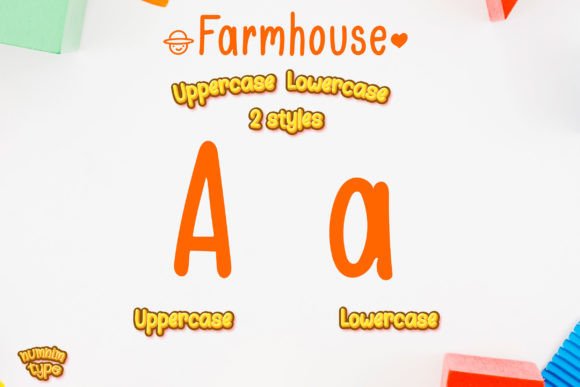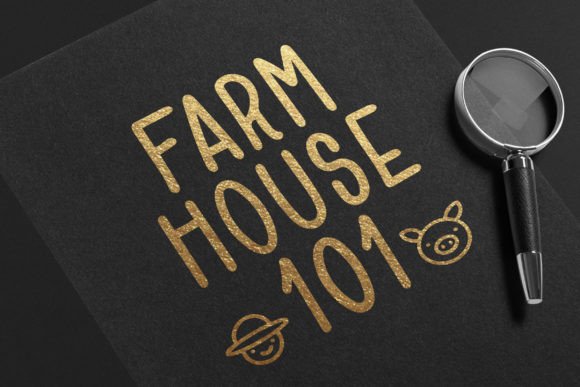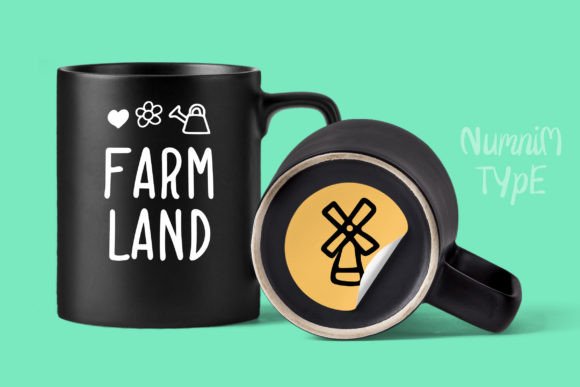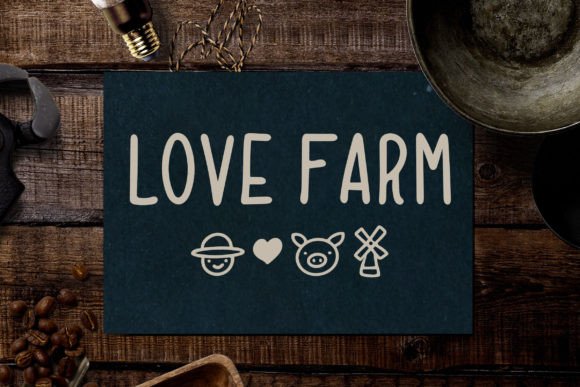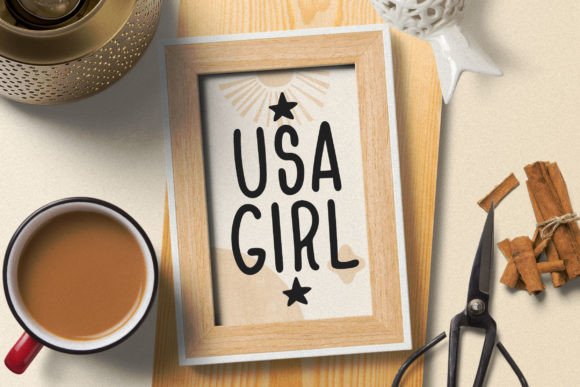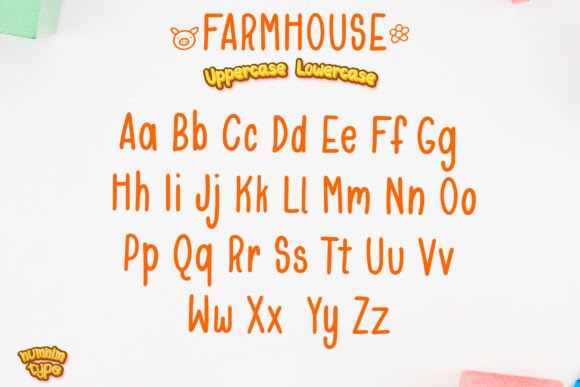
Introducing Farmhouse Font: The Perfect Addition to Your Design Collection
Are you a designer or crafter looking for a unique and playful font to add to your collection? Look no further than Farmhouse Font! This adorable handwritten font is perfect for a variety of projects, from stickers and mugs to t-shirts and ornaments. In this article, we’ll dive into the features and benefits of Farmhouse Font, and explore how it can elevate your designs.
Farmhouse Font is a cute and uniquely crafted handwritten font that is sure to capture the hearts of designers and crafters alike. Its fun and playful characters make it the perfect addition to any project that requires a personal touch. Whether you’re creating stickers, mugs, t-shirts, or ornaments, Farmhouse Font is the perfect choice.
- Handwritten style: Farmhouse Font has a charming handwritten style that adds a personal touch to any project.
- Fun and playful characters: Farmhouse Font has a wide range of fun and playful characters that are perfect for creating unique and eye-catching designs.
- Versatile: This font is perfect for a variety of projects, from stickers and mugs to t-shirts and ornaments.
Uses for Farmhouse Font
Farmhouse Font is a versatile font that can be used for a wide range of projects. Here are some ideas to get you started:
- Stickers: Add a personal touch to your stickers with Farmhouse Font.
- Mugs: Create unique and eye-catching mug designs with Farmhouse Font.
- T-shirts: Add a playful touch to your t-shirt designs with Farmhouse Font.
- Ornaments: Create charming ornaments with Farmhouse Font.
- Farm House Theme event cards: Use Farmhouse Font to create beautiful and unique event cards for farm-themed events.
Benefits of Using Farmhouse Font
There are many benefits to using Farmhouse Font in your designs. Here are a few:
- Unique and eye-catching designs: Farmhouse Font allows you to create unique and eye-catching designs that will stand out from the crowd.
- Versatile: Farmhouse Font can be used for a wide range of projects, making it a great addition to any design collection.
- High-quality: Farmhouse Font is a high-quality font that is sure to impress.
Here are a few tips for using Farmhouse Font in your designs:
- Experiment with different colors: Farmhouse Font looks great in a variety of colors, so don’t be afraid to experiment.
- Pair with other fonts: Farmhouse Font pairs well with other fonts, so try pairing it with a bold font for a unique look.
- Use for headings and titles: Farmhouse Font is perfect for headings and titles, so use it to add a personal touch to your designs.
Farmhouse Font is a unique and versatile font that is perfect for designers and crafters alike. Its fun and playful characters make it the perfect addition to any project, from stickers and mugs to t-shirts and ornaments. With its PUA encoding and high-quality design, Farmhouse Font is a great choice for anyone looking to add a personal touch to their designs.